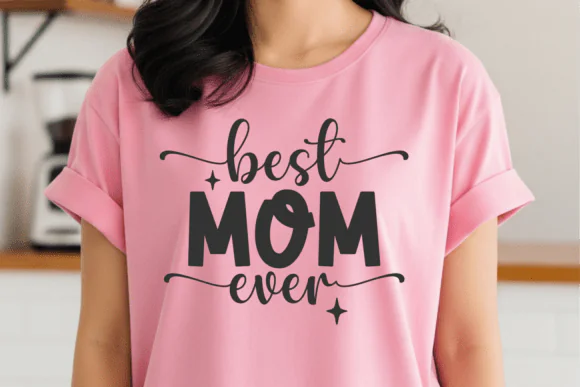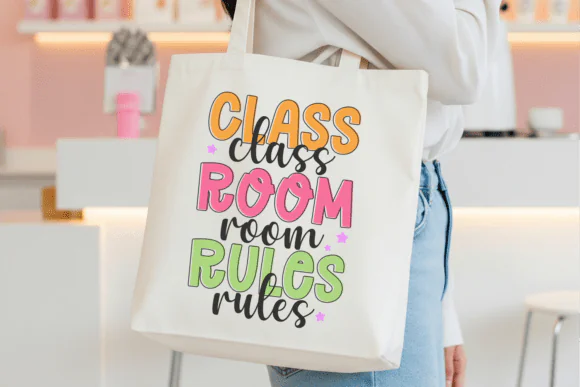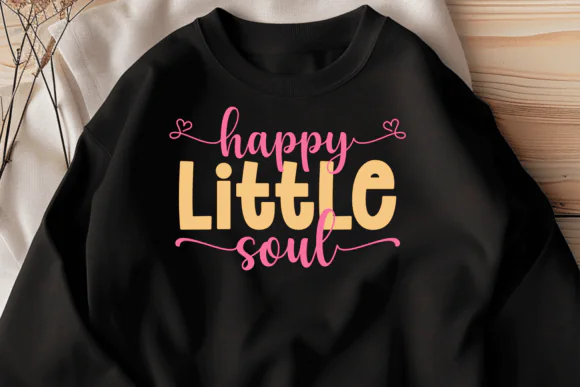
Stylish Handwriting Font | Playful Cute Font Duo with Swashes for Cricut, SVG Designs, T-Shirts, Birthday Cards, Easter Crafts & Sublimation
Create fresh, playful, and eye-catching designs with Stylish Handwriting Font, a cute and versatile font duo that combines a modern bold display font with a sweet handwritten script style. This font set is perfect for projects that need a fun, energetic, and handmade look.
Stylish Handwriting Font is designed with clean lines, making it a great choice for Cricut users, SVG designers, teachers, crafters, and small business owners. Its playful style works beautifully for spring designs, Easter projects, birthday themes, classroom materials, party decorations, t-shirts, tote bags, sublimation items, stickers, mugs, greeting cards, social media graphics, digital planners, and branding projects.
The handwriting script includes elegant stylistic swashes, giving your lettering a more decorative and personalized appearance. With OpenType support, swashes, stylistic sets, numbers, and punctuation, this font duo gives you flexibility for both simple and detailed creative layouts.
• Cricut Design Space projects
• SVG craft designs
• T-shirts and tote bags
• Sublimation projects
• Birthday cards and party decor
• Easter and spring designs
• Seasonal greeting cards
• Classroom and teacher resources
• Stickers and labels
• Mug designs
• Digital planners
• Branding and logo designs
• Printable wall art
• Playful and cute font duo
• Includes bold display and handwriting script styles
• Clean lines for craft-friendly designs
• Great for Cricut, SVG, and sublimation projects
• Includes swashes and stylistic sets
• Supports numbers and punctuation
• Perfect for birthdays, Easter, spring, and everyday creative projects
Stylish Handwriting Font is a beautiful choice for creating cheerful, modern, and craft-ready designs with a sweet handwritten touch and fun display style.